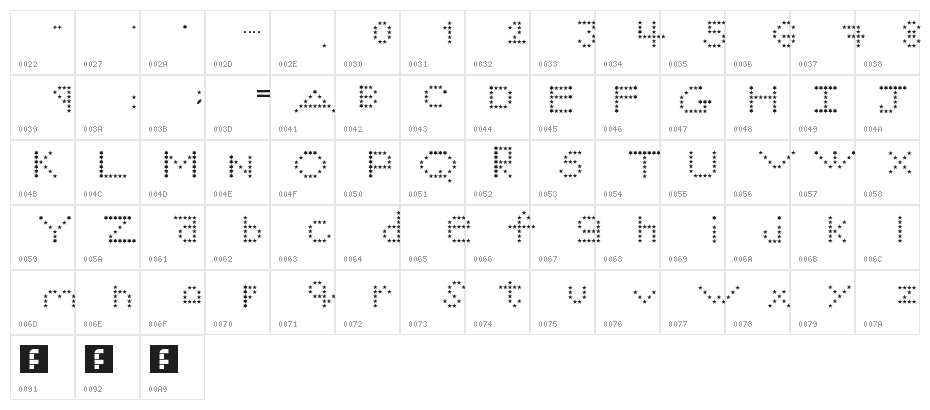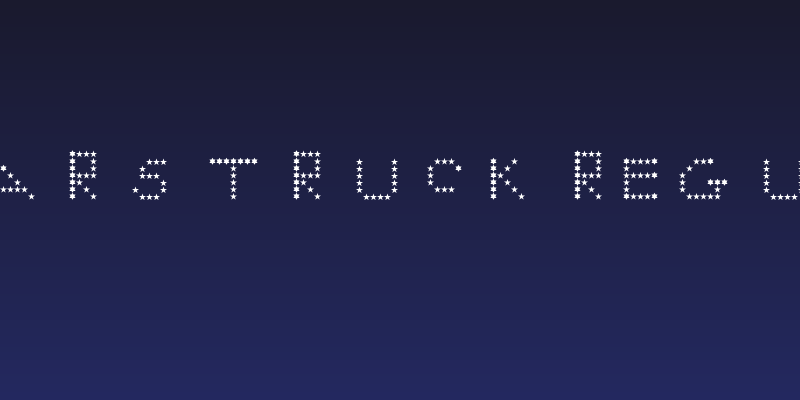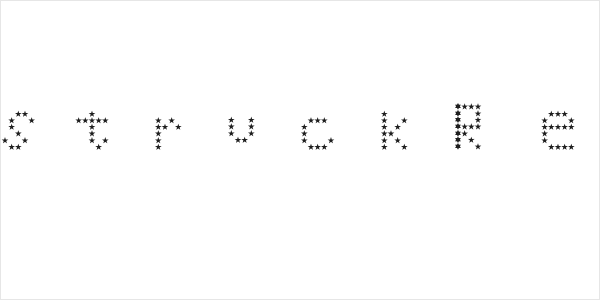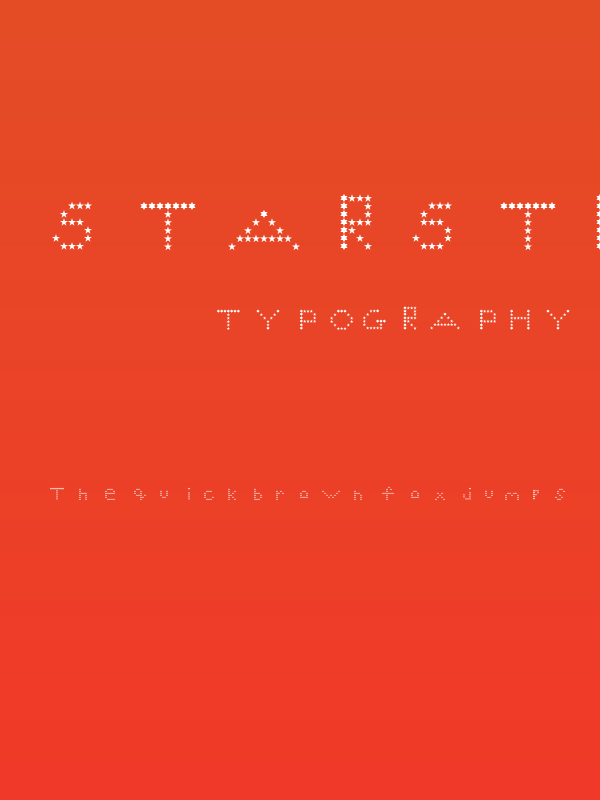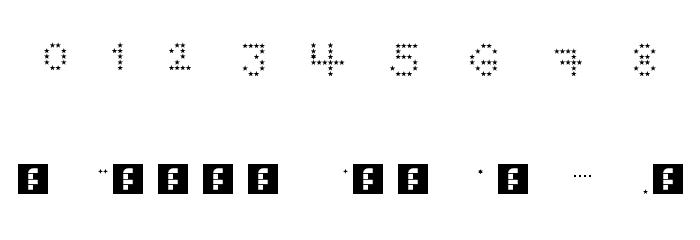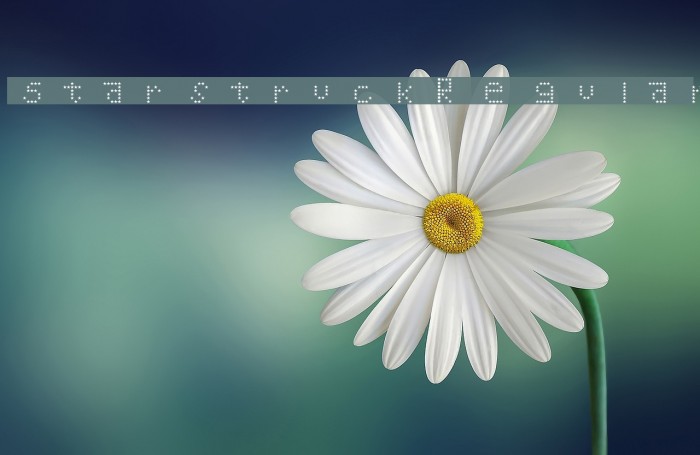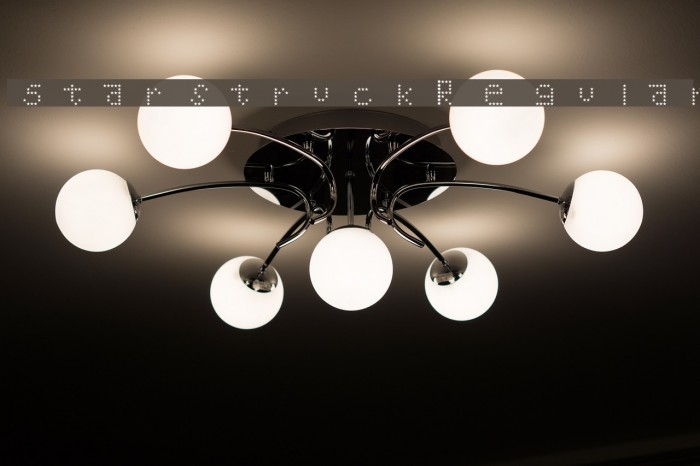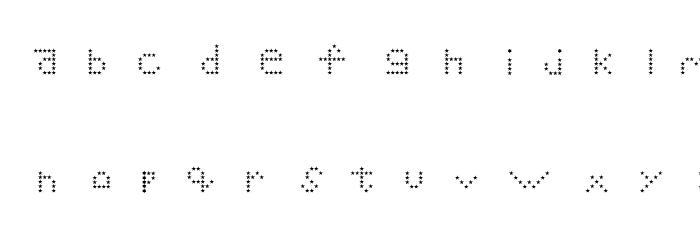
Starstruck Regular Font
Starstruck Regular Description
This font features a unique design where each character is composed of small star-like dots, creating a playful and whimsical appearance. The letters maintain a consistent size and shape, with a geometric and structured layout. The uppercase and lowercase letters, as well as numbers and special characters, all follow this dotted pattern, giving the font a cohesive and distinctive look. The spacing between the dots is even, contributing to a clean and organized aesthetic. This font is ideal for projects that require a fun and eye-catching style, such as children's books, party invitations, or creative branding.
| Overall Style | Playful and whimsical |
| Use Case | Headlines, Logos, Decorative text |
| Proposed Projects | Children's books, party invitations, creative branding, posters, and decorative projects. |